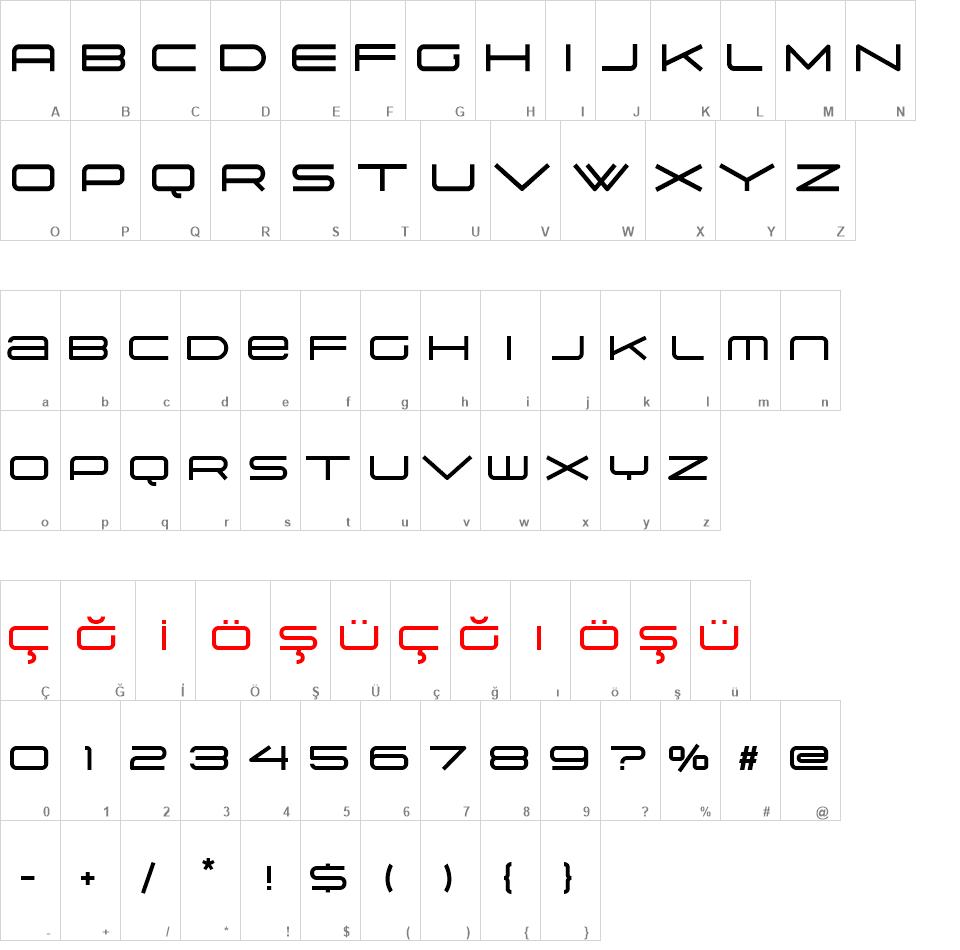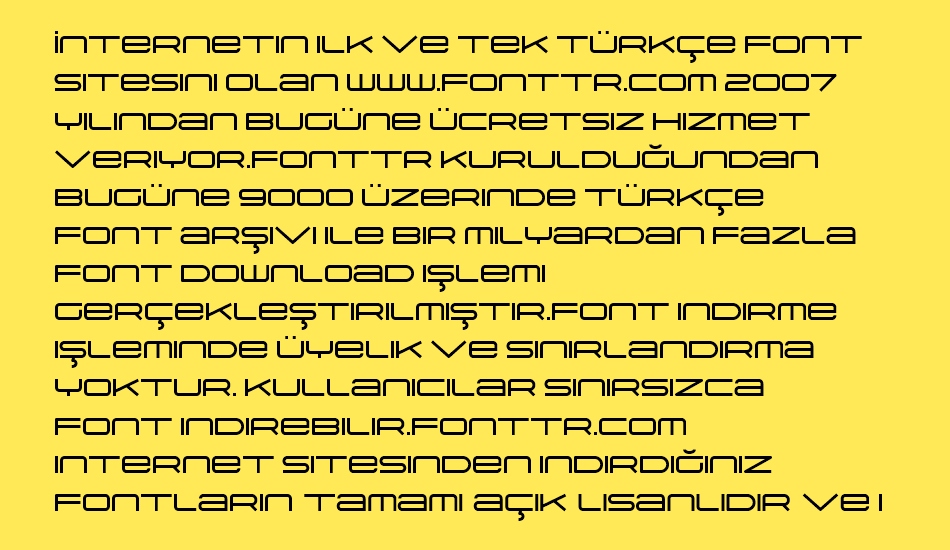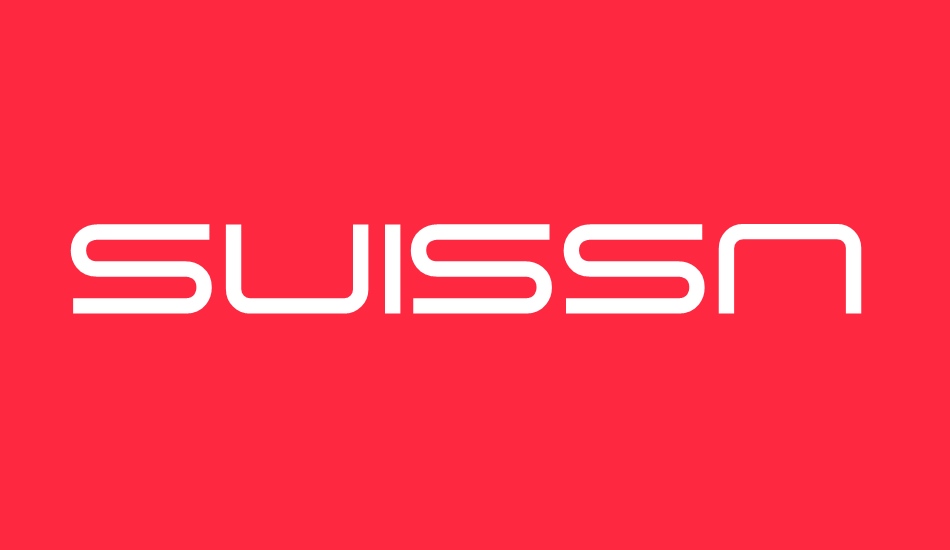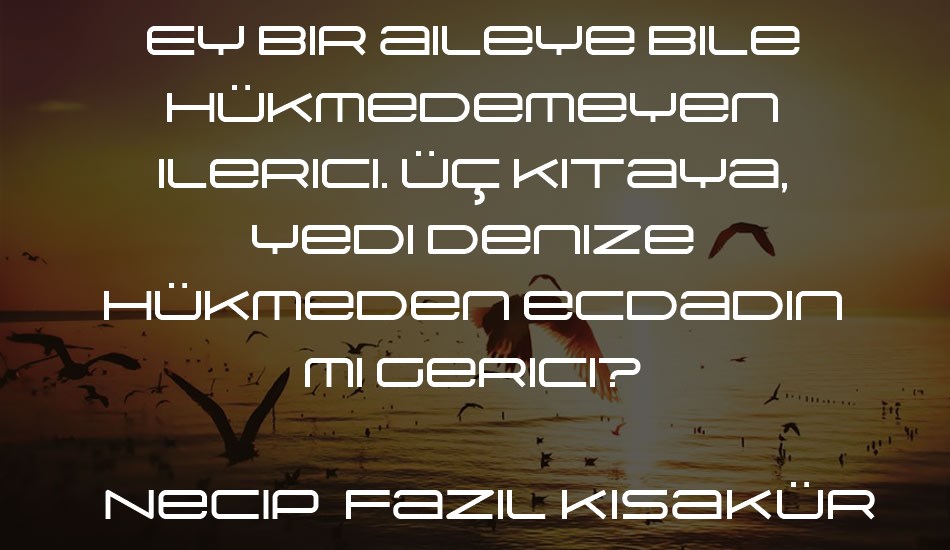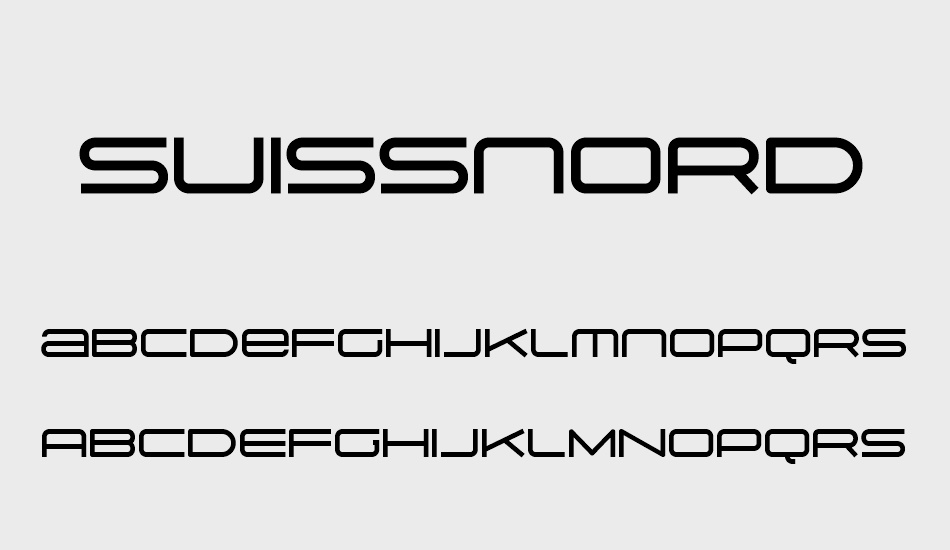
Suissnord font
Suissnord is a simple yet elegant display font with curvaceous styling. The lines are sleek and slender keeping the same weight throughout the entire alphabet. While the majority of characters are uppercase, you'll find lowercase versions of others like a, e, and n. Basic Latin, extended latin,
European accents, diacritics, and basic punctuation are included. Use Suissnord for a magazine, fashion ad, or company logo.